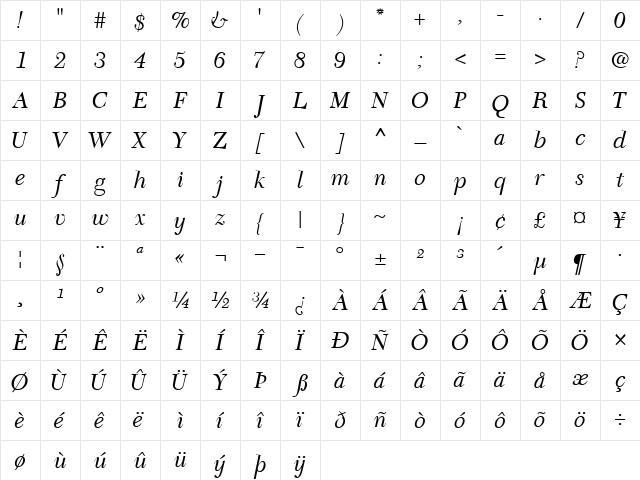
TycoonSSK Italic
Design Context for TycoonSSK
TycoonSSK is a composed and adaptable typeface that performs quietly and consistently across a wide range of design contexts. The slanted form adds forward momentum and visual energy.
Pro Tip: Use TycoonSSK for emphasis, pull quotes, and subheadings where its slanted energy can add rhythm to the layout.